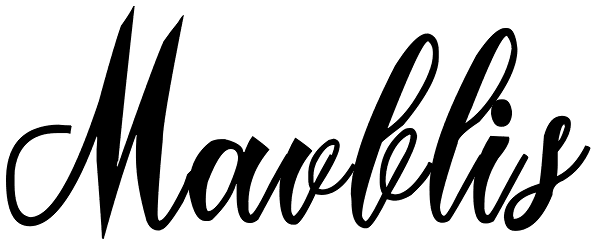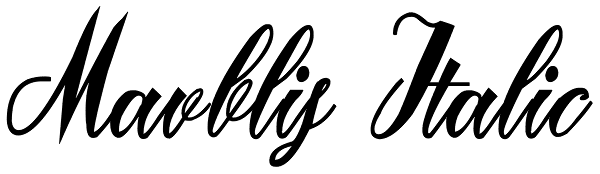
Mavblis
Mavblis fonts have playful and fancy look, which may recall that seen in fifties ads. The look, which is quite bold may well allow for using this font in titles, packaging, or catchphrases. There are also some ligatures and alternates encoded, so...